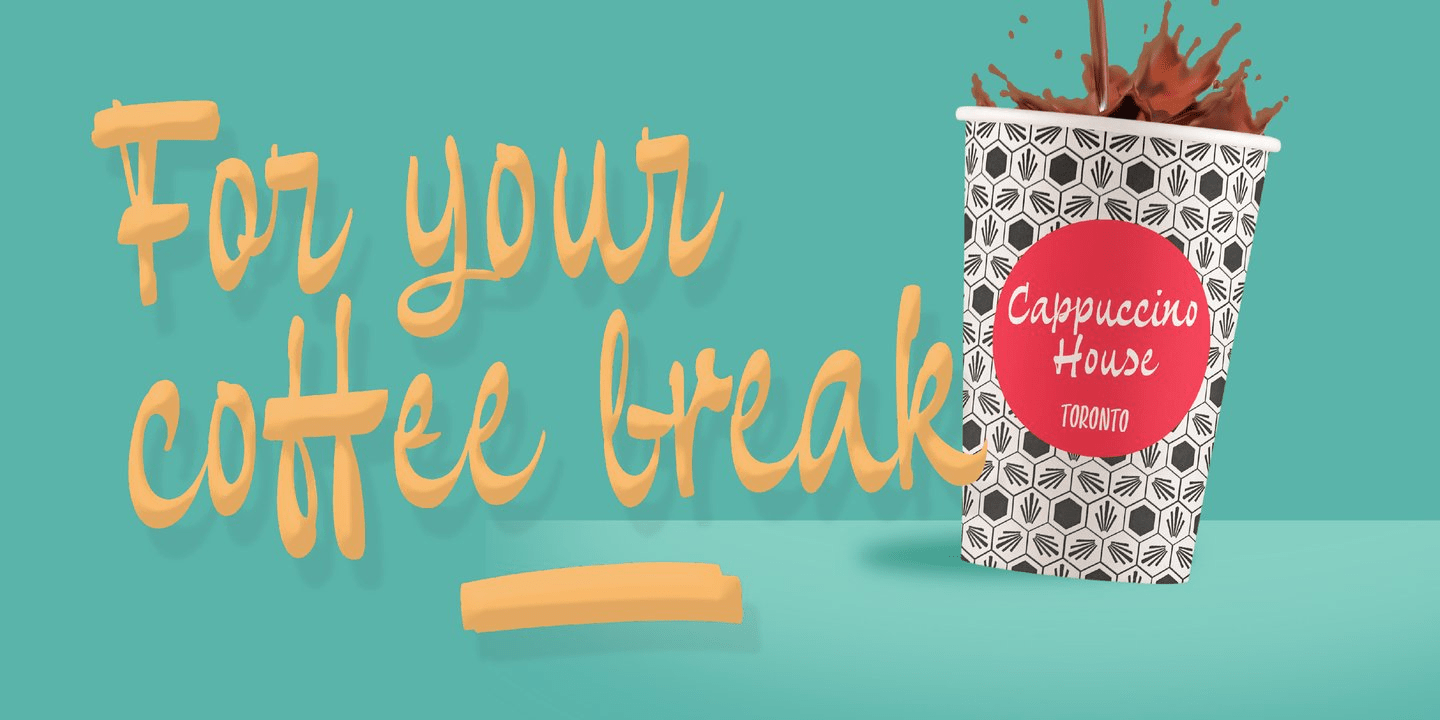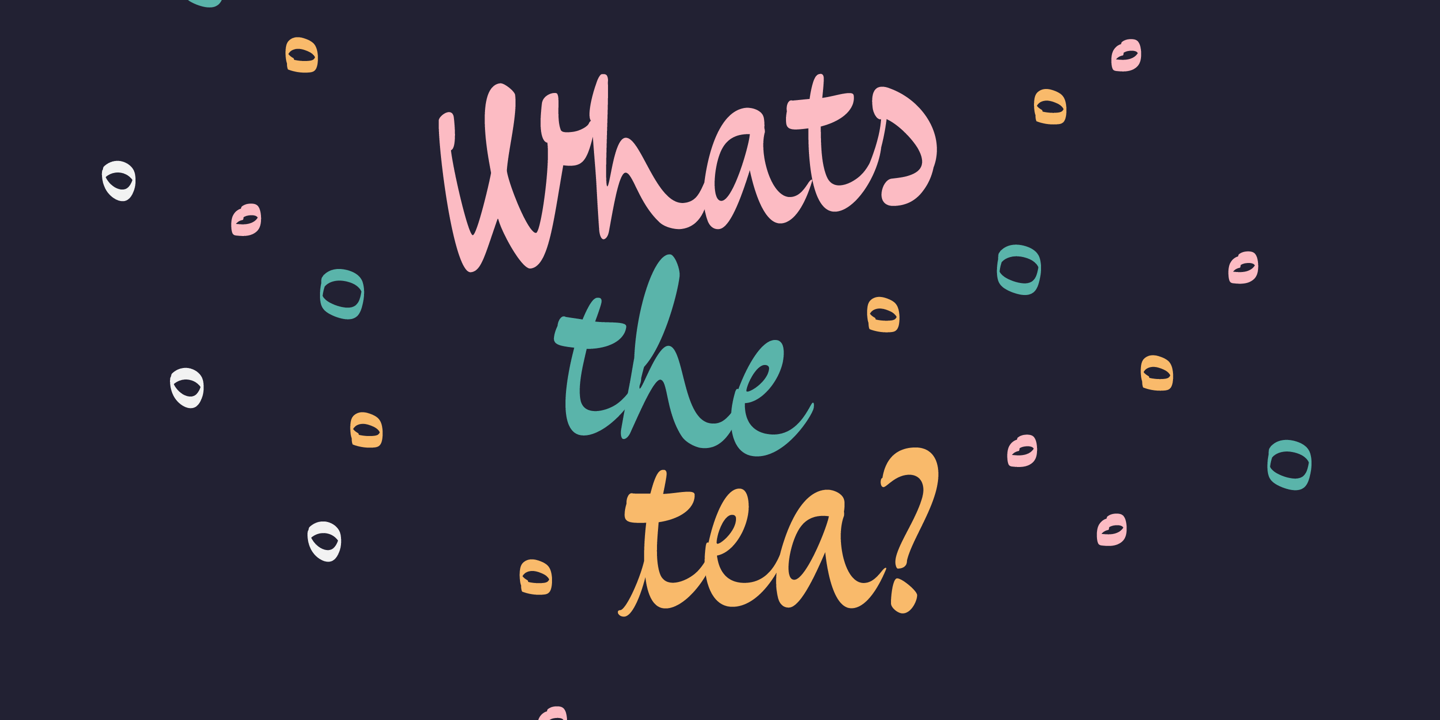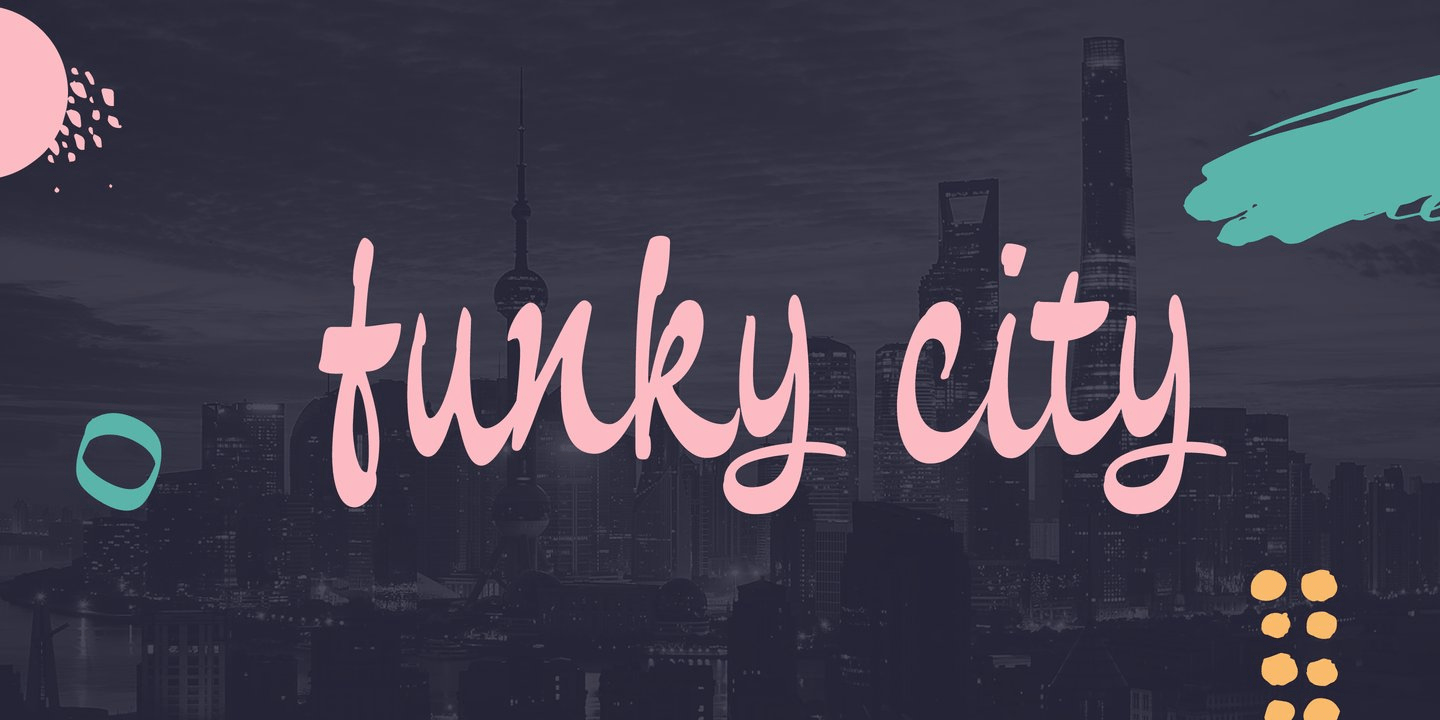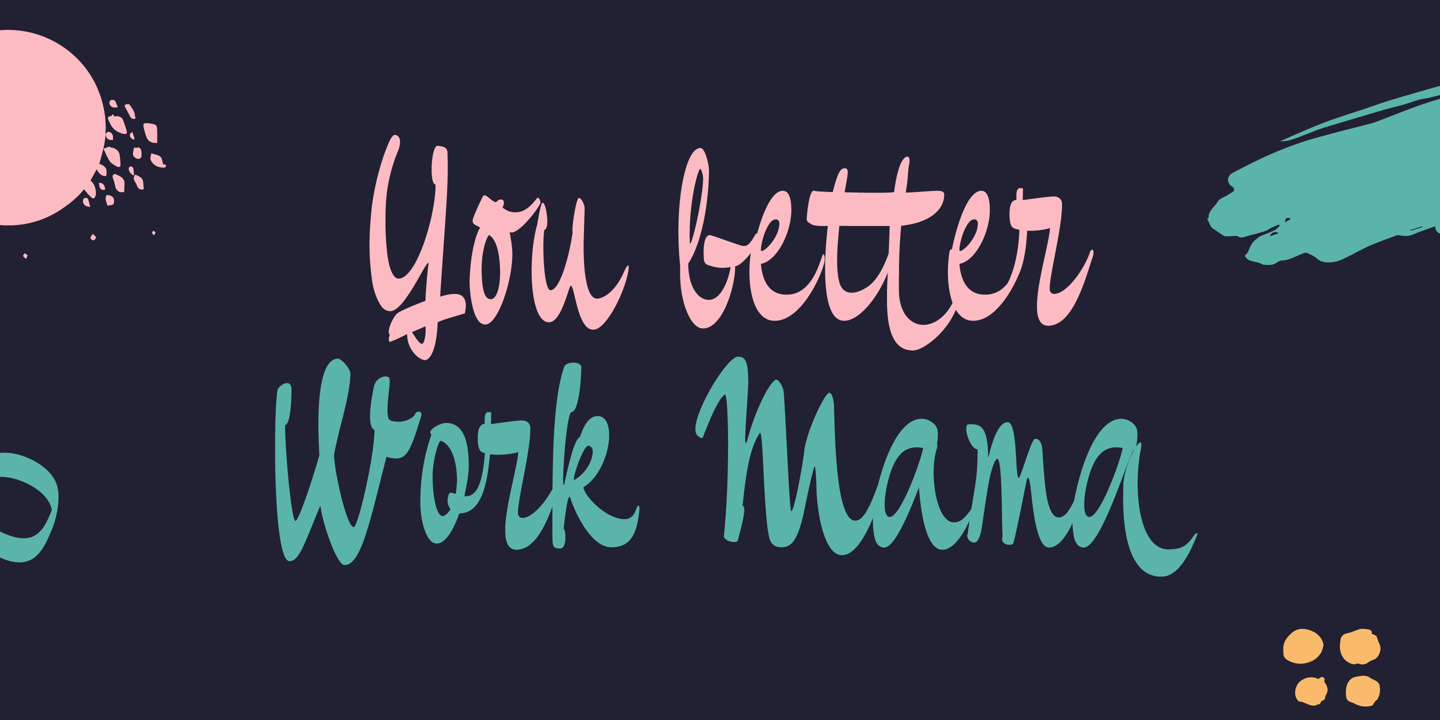
About Pando Script
Pando Script is the a new brush script with inverted contrast and a lot of personality. Pando comes with many ligatures and alternates. We recommend to us it for headlines, labels, packaging and branding.